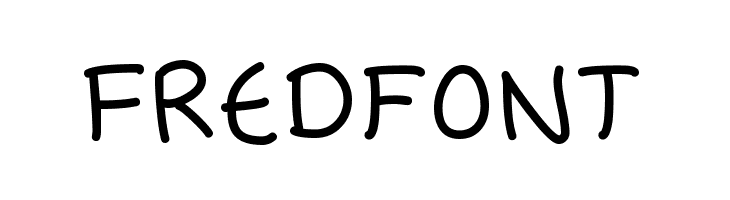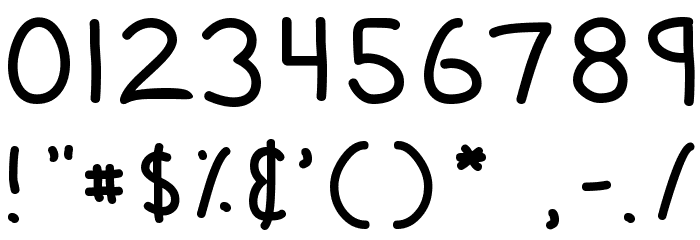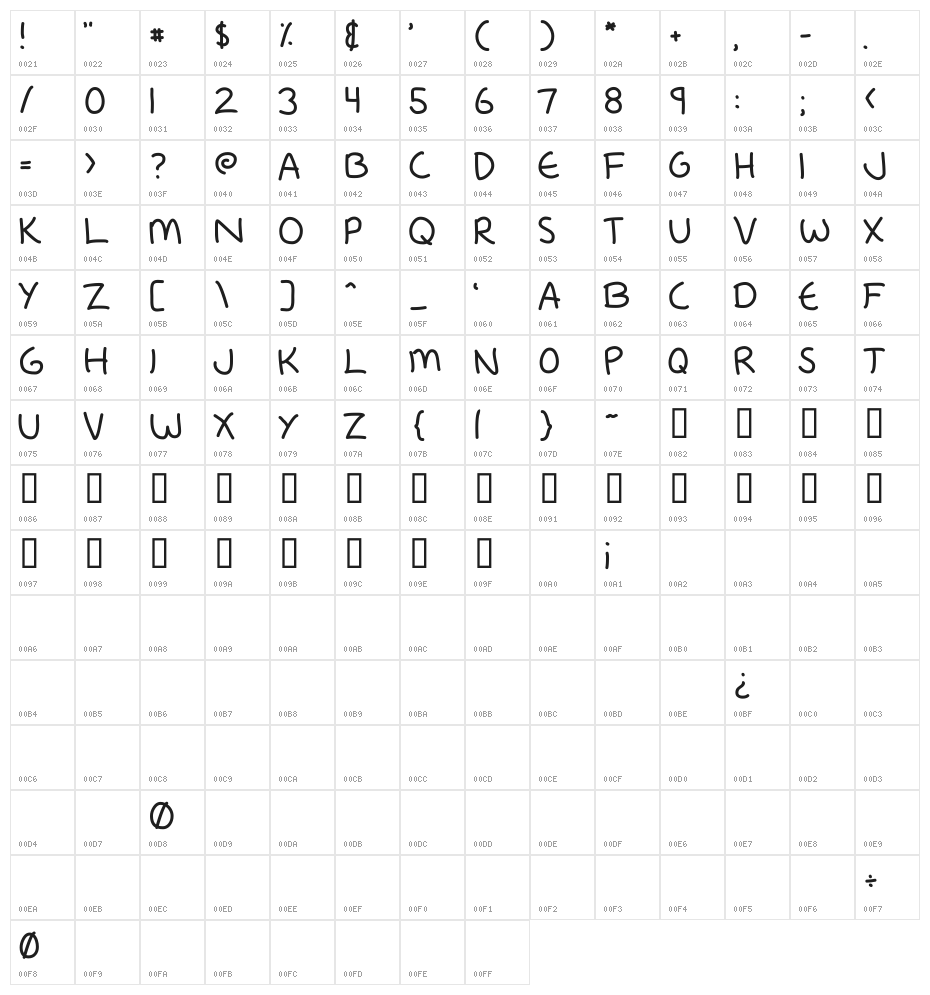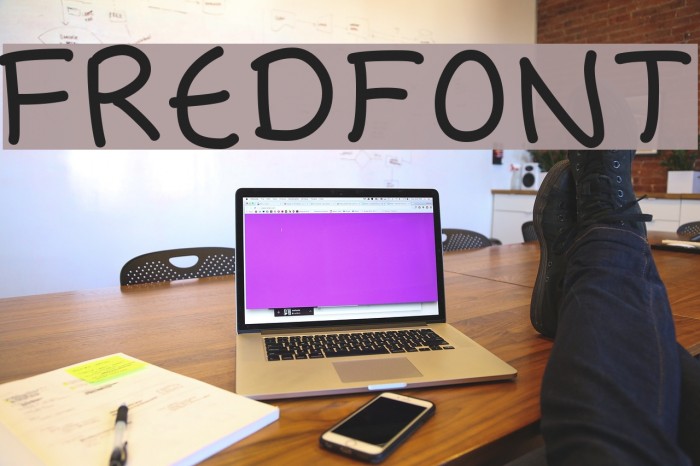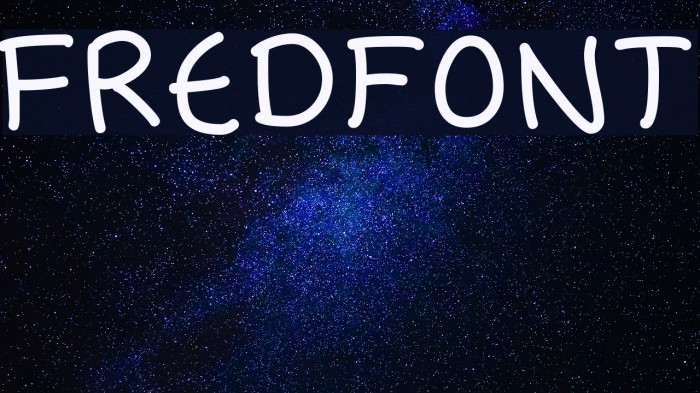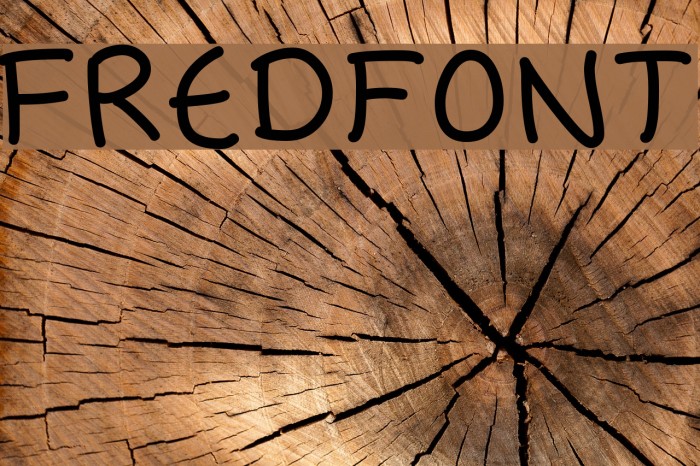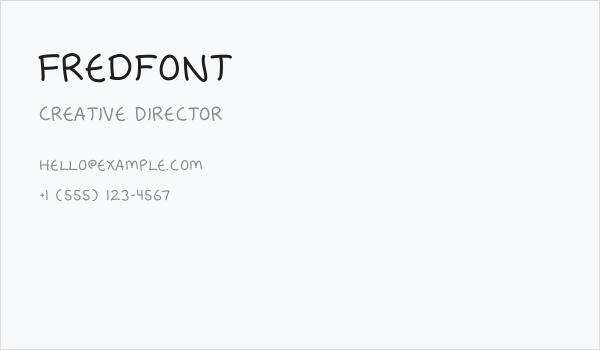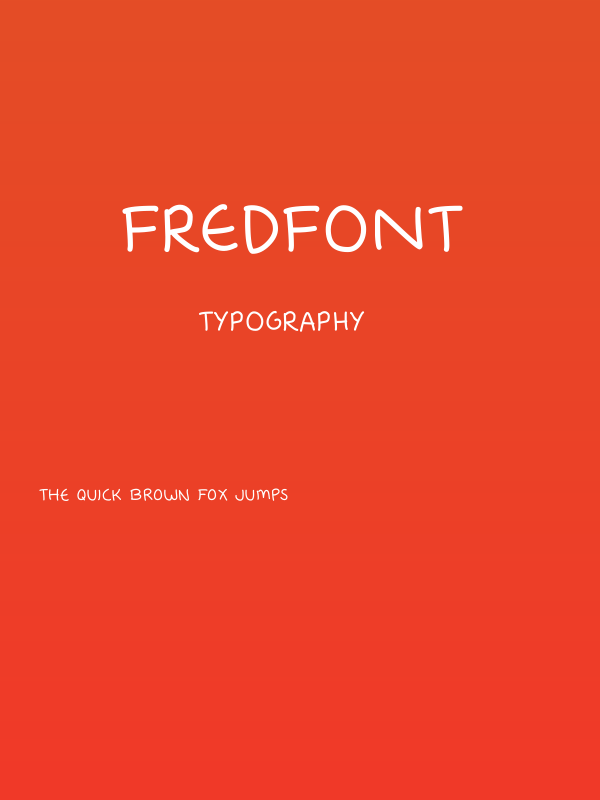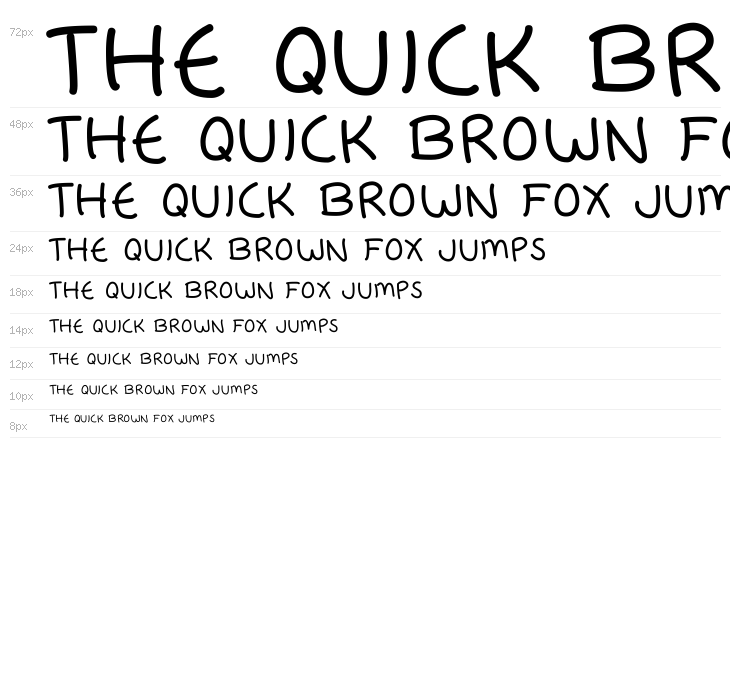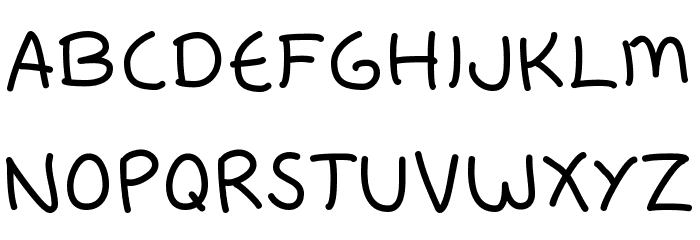
Fredfont Font
Fredfont Description
This font features a playful and casual handwritten style, characterized by its rounded and slightly irregular letterforms. The strokes are consistent in width, giving it a uniform appearance despite its informal nature. The letters are well-spaced, providing a clear and readable text even at smaller sizes. The font includes a full set of uppercase and lowercase letters, numerals, and a variety of punctuation marks and special characters. Its friendly and approachable design makes it suitable for projects that require a personal touch.
Overall StyleCasual
Use CaseHeadlines, Informal text, Creative projects
Proposed ProjectsIdeal for children's books, greeting cards, casual branding, and social media graphics.